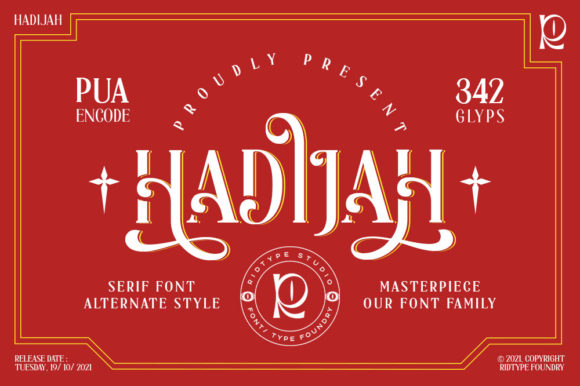
Introducing Hadijah Font: The Epitome of Elegance and Sophistication
In the realm of typography, few fonts manage to strike a balance between elegance, assertiveness, and distinctiveness. However, Hadijah Font is an exception, embodying all these qualities and more. This exquisite serif font is not only a marvel of modern typographic design but also a nod to the timeless beauty of calligraphy. With its unique blend of classic influences and contemporary flair, Hadijah Font is poised to elevate your projects to unprecedented heights of sophistication and style.
Key Features of Hadijah Font
- Elegant and Assertive: Hadijah Font boasts an elegant appearance that is both refined and sophisticated. Its assertive presence ensures that your text does not go unnoticed, making it perfect for projects that demand attention and respect.
- Distinct Serif: The serif design of Hadijah Font adds a touch of traditional calligraphy to your text, giving it a distinctive look that sets it apart from more mundane fonts.
- Classy Calligraphic Influences: Drawing inspiration from the world of calligraphy, Hadijah Font incorporates flowing lines and elegant curves, imbuing your text with a sense of luxury and refinement.
- Contemporary and Fresh: Despite its classic roots, Hadijah Font feels remarkably contemporary, ensuring that your projects look modern and up-to-date.
The Versatility of Hadijah Font: Diverse Applications
One of the most significant advantages of Hadijah Font is its versatility. Its elegant and assertive nature makes it suitable for a wide range of applications, from high-end branding and advertising to more personal projects such as wedding invitations and personal stationery.
Branding and Advertising
In the competitive world of branding and advertising, standing out is crucial. Hadijah Font, with its distinct serif and elegant appearance, offers a unique solution. It can be used to create memorable logos, compelling ad copy, and engaging marketing materials that capture the essence of your brand.
Wedding and Event Planning
For those planning a wedding or any event, the importance of elegant and distinctive stationery cannot be overstated. Hadijah Font can be used to create beautiful wedding invitations, elegant place cards, and stylish event programs, adding a touch of sophistication to your special day.
Digital and Print Media
Hadijah Font is not limited to print; it shines equally in digital media. Whether you’re designing a website, creating engaging social media content, or working on e-books and digital magazines, this font ensures your text looks refined and captivating across all platforms.
Hadijah Font: A Masterclass in Typographic Excellence
Typography is an art form that requires a deep understanding of aesthetics, readability, and the emotional impact of text on the viewer. Hadijah Font stands as a testament to typographic excellence, offering a masterful blend of form and function.
Readability and Legibility
One of the critical aspects of any font is its readability and legibility. Hadijah Font excels in both areas, ensuring that your text is not only beautiful but also easy to read. This makes it an excellent choice for body text, headings, and any other application where clarity is paramount.
Emotional Connection
Typography has the power to evoke emotions and create a connection with the reader. Hadijah Font, with its elegant and assertive presence, can convey a sense of luxury, sophistication, and professionalism, making it an ideal choice for projects where you want to leave a lasting impression.
Why Choose Hadijah Font?
In a sea of fonts, why should Hadijah Font be your choice? The answer lies in its unique combination of elegance, assertiveness, and distinctiveness. Here are a few compelling reasons to choose Hadijah Font for your next project:
- Unique Aesthetic: Hadijah Font offers a unique aesthetic that blends classic calligraphic influences with a contemporary feel, ensuring your projects stand out.
- Versatility: Its versatility means you can use it across a wide range of applications, from branding and advertising to personal stationery.
- Emotional Impact: The font’s elegant and assertive presence can create a powerful emotional connection with your audience, enhancing the impact of your message.
Hadijah Font is more than just a font; it’s a statement of elegance, sophistication, and style. Its unique blend of classic calligraphic influences and contemporary freshness makes it an invaluable asset for designers, marketers, and anyone looking to elevate their projects to new heights. Whether you’re working on a high-end brand campaign, planning a wedding, or simply looking for a font that makes your text stand out, Hadijah Font is an excellent choice. Fall in love with its beauty and bring your projects to the highest levels of typographic excellence.